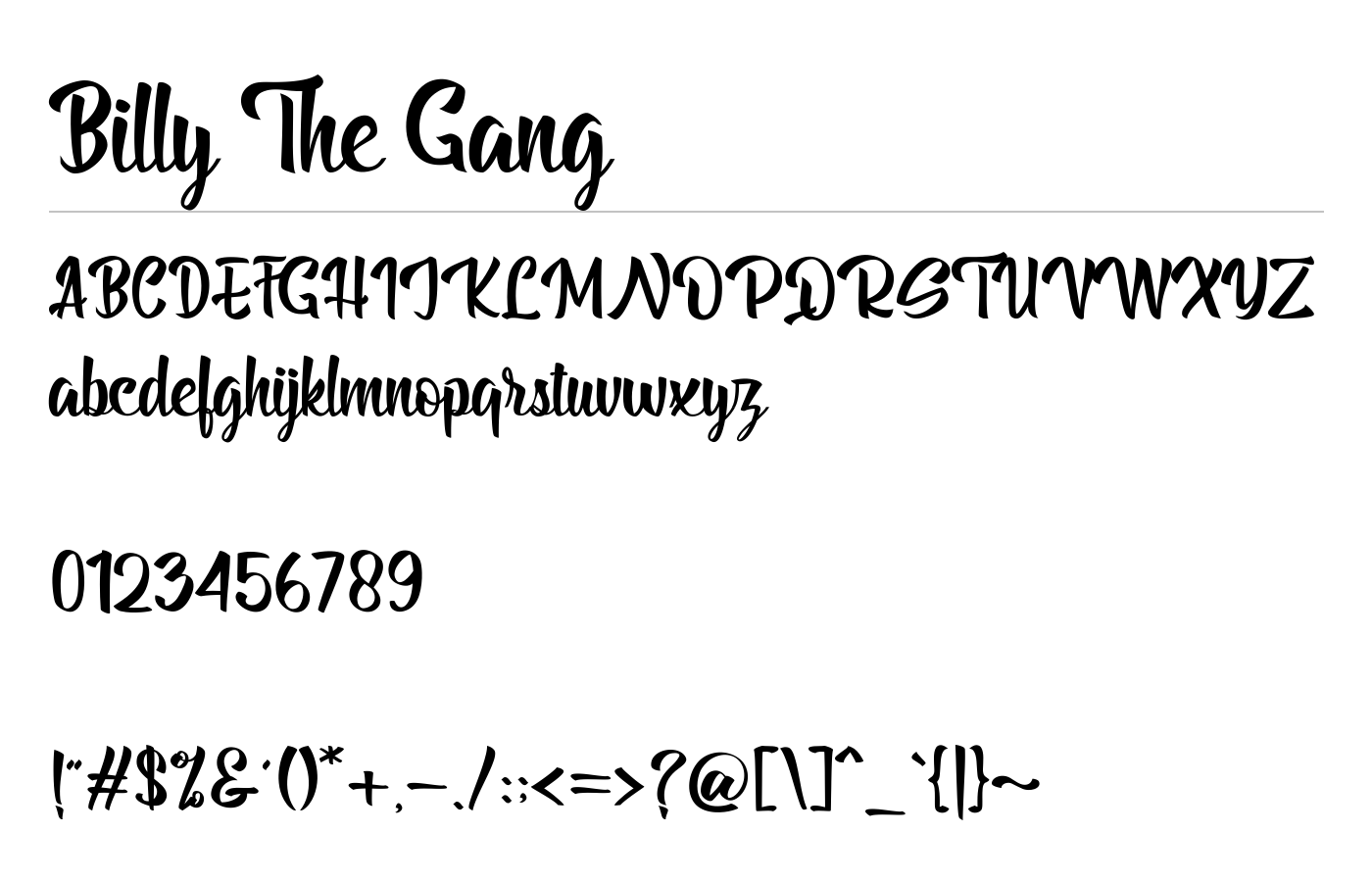
Billy The Gang is a playful and expressive script font with a brush-like, hand-painted feel. Its lively strokes and slightly irregular letterforms give it an energetic, casual vibe that works well for creative projects, branding, and headlines where personality and a friendly tone are desired. This font is perfect for designs that want to stand out with an informal yet stylish look.
Billy The Gang Font
About Billy The Gang Font
| Font family | Billy The Gang Font |
| Designer | Anton Cahyono |